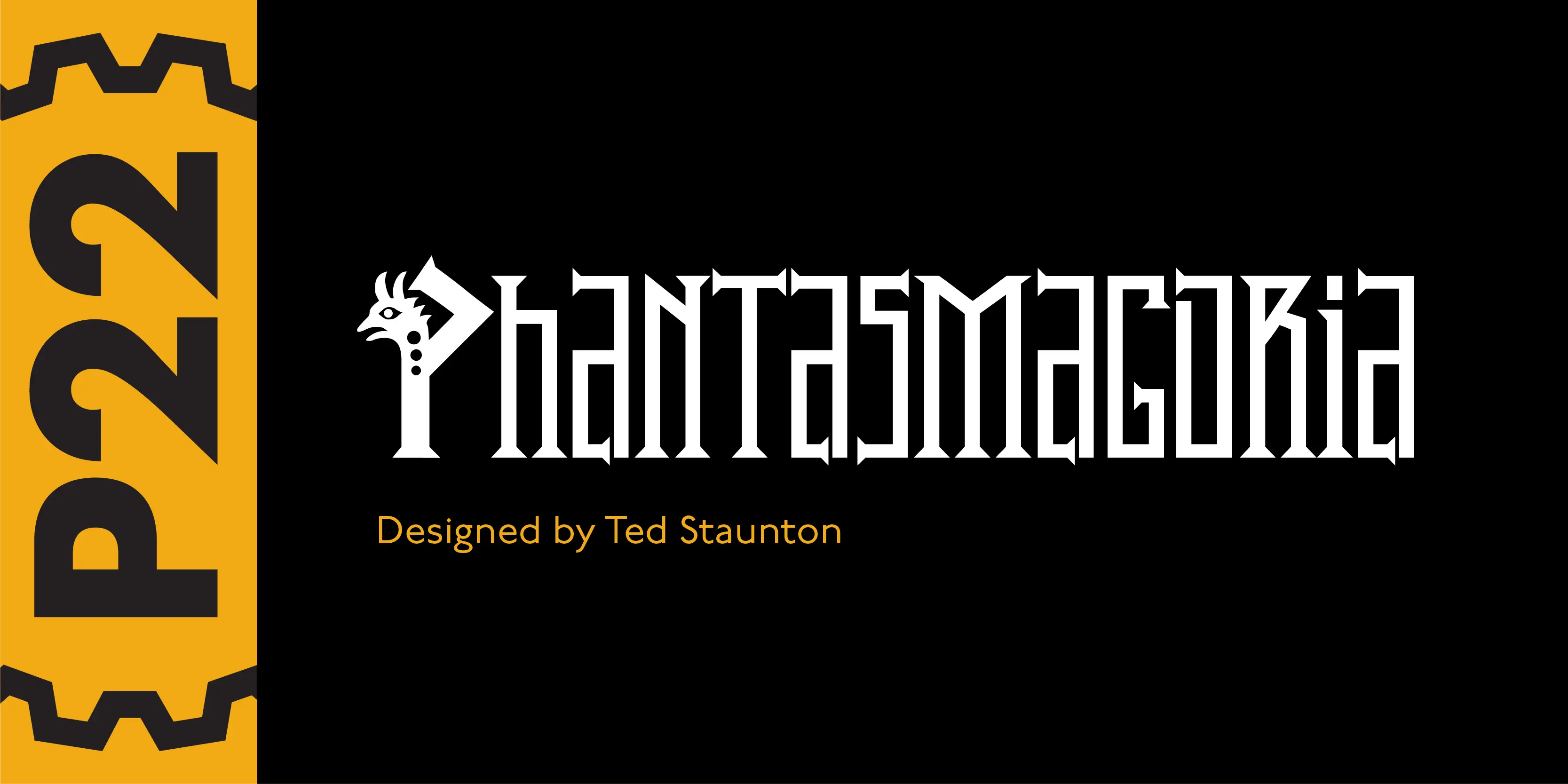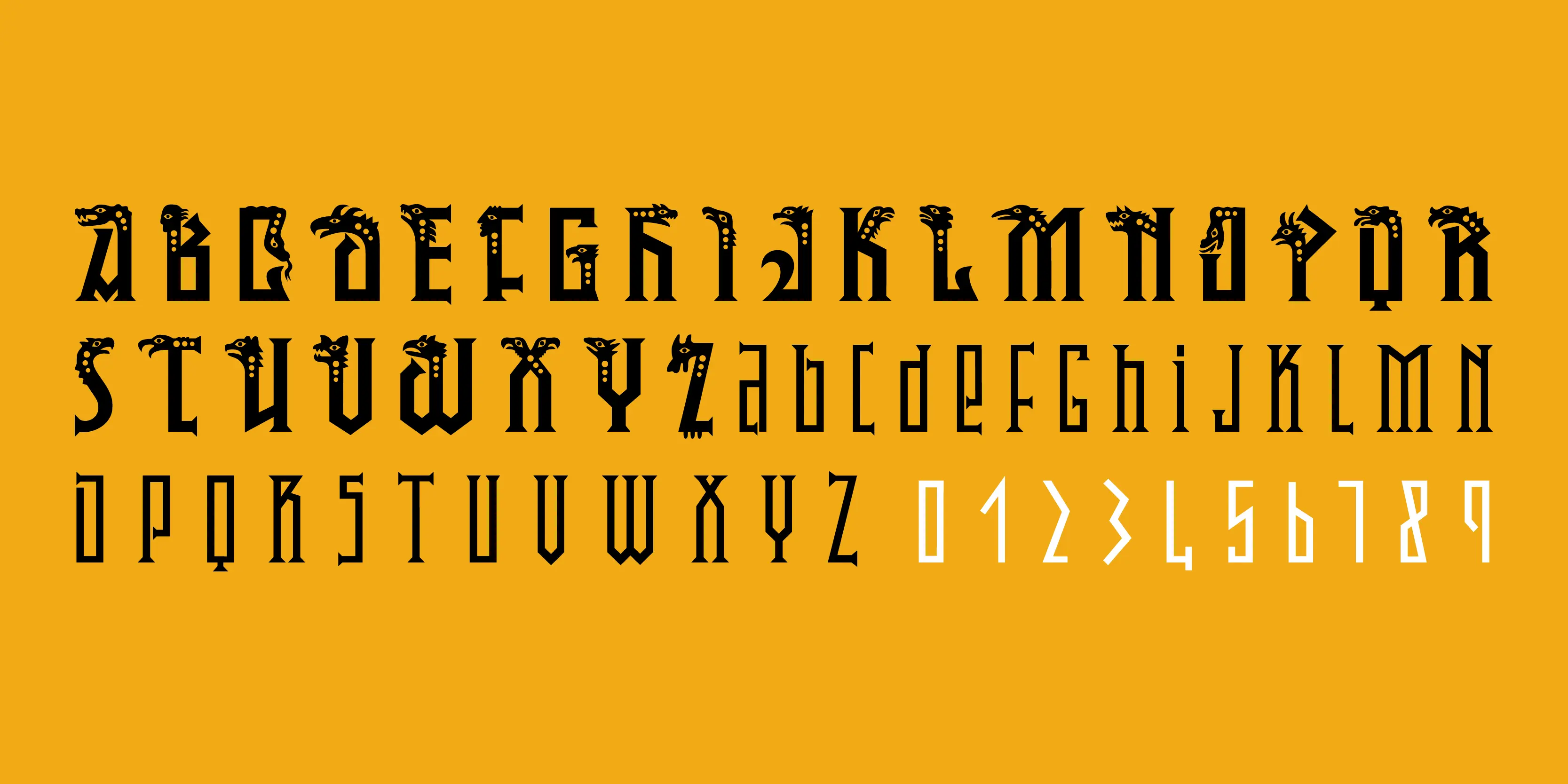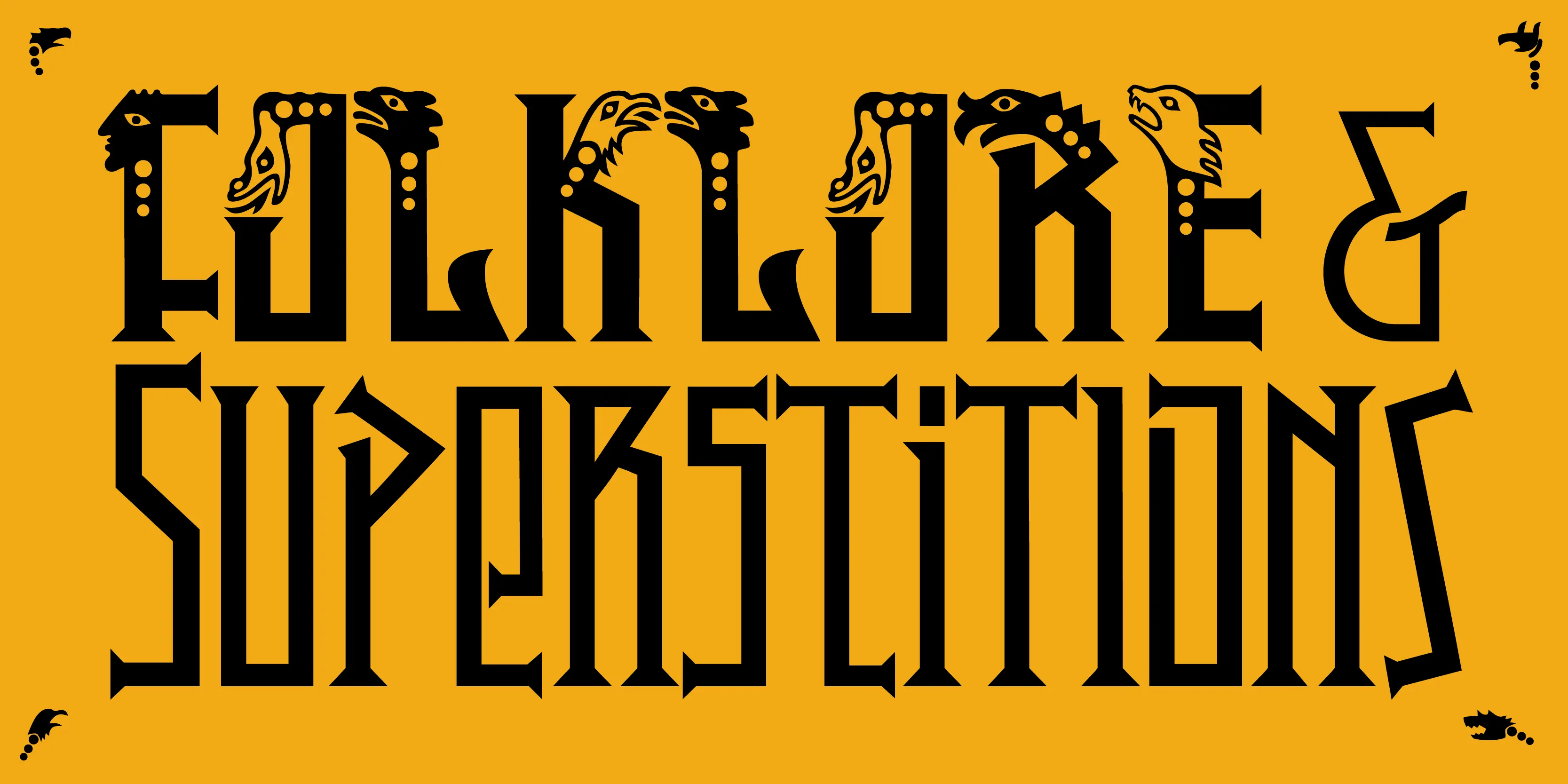
Phantasmagoria Font
Phantasmagoria
P22 Phantasmagoria is a stylized Celtic-meets-Futurist font has multiple variations as a geometric majuscule. The heads of beasts that cap each large Uppercase letter complement the thinner, lowercase letters that can function on their own as an effective and flexible titling font. The Pro version features all basic variations plus more.
• Ornaments
• Small Capitals
• Small Capitals for Capitals
• Swashes
• Titling Capitals